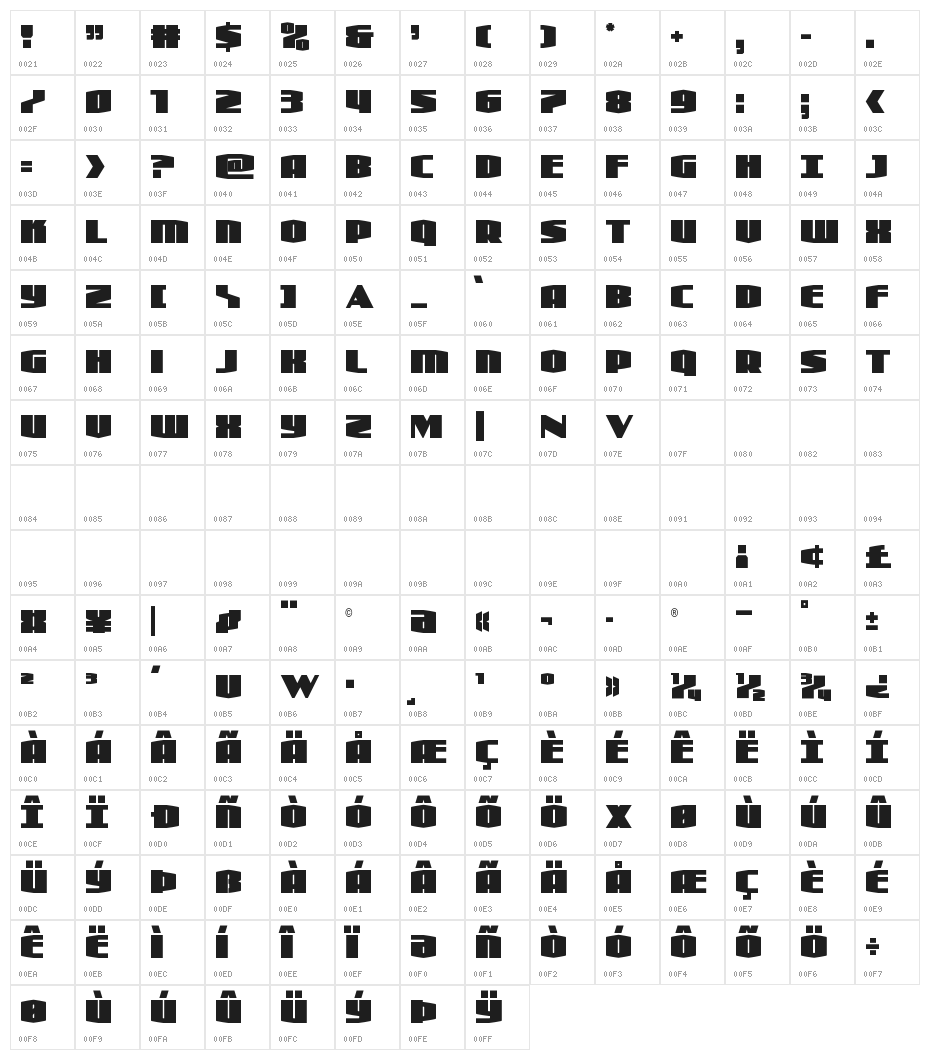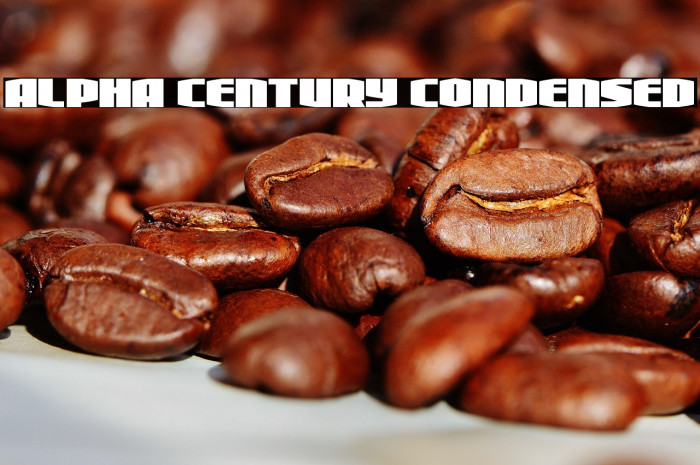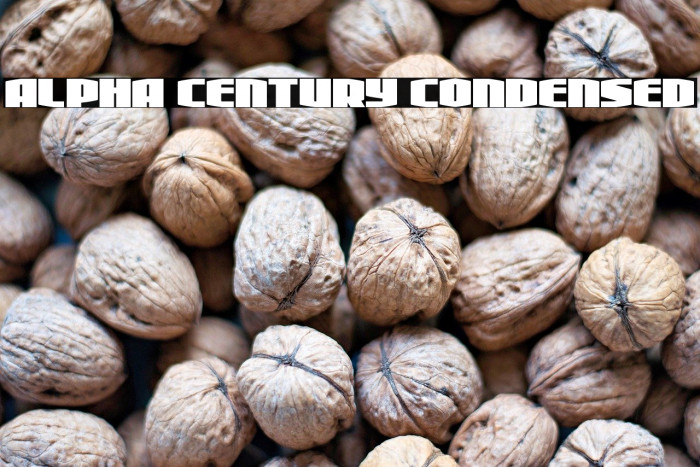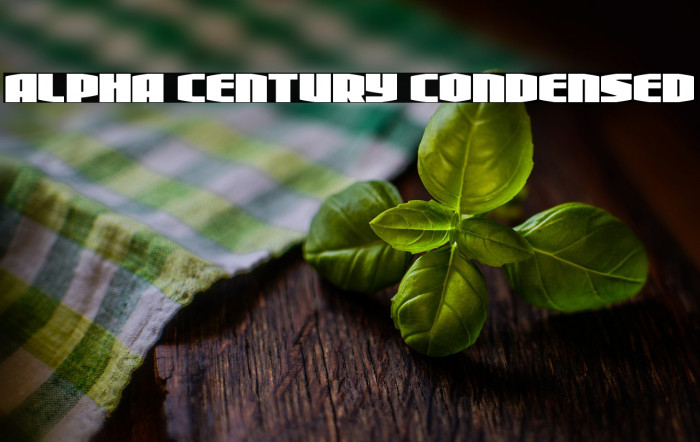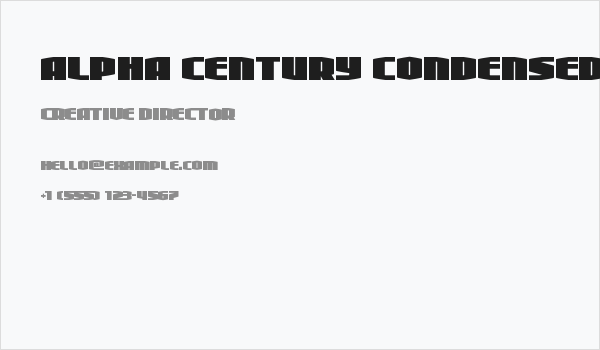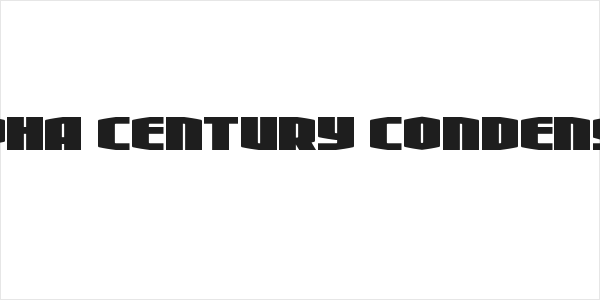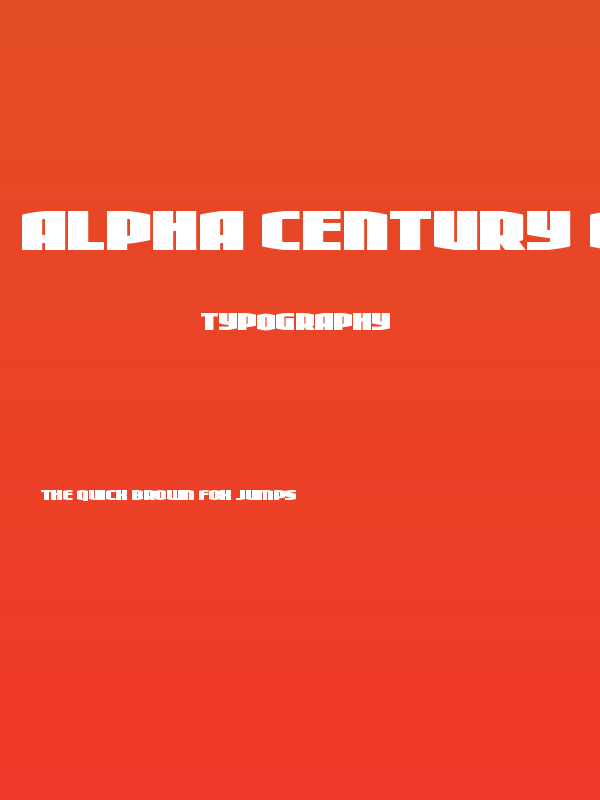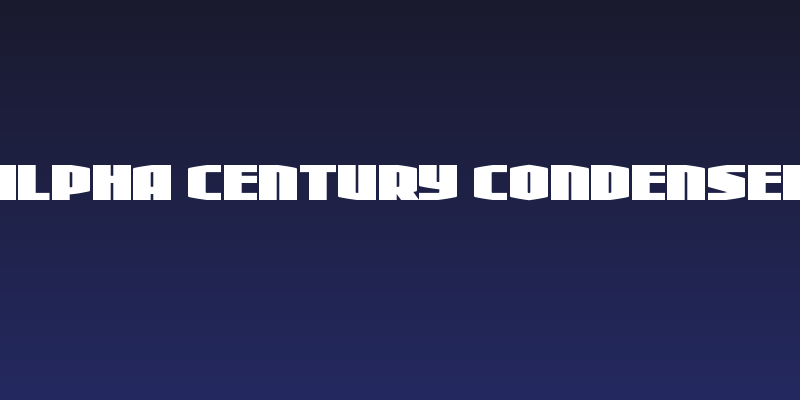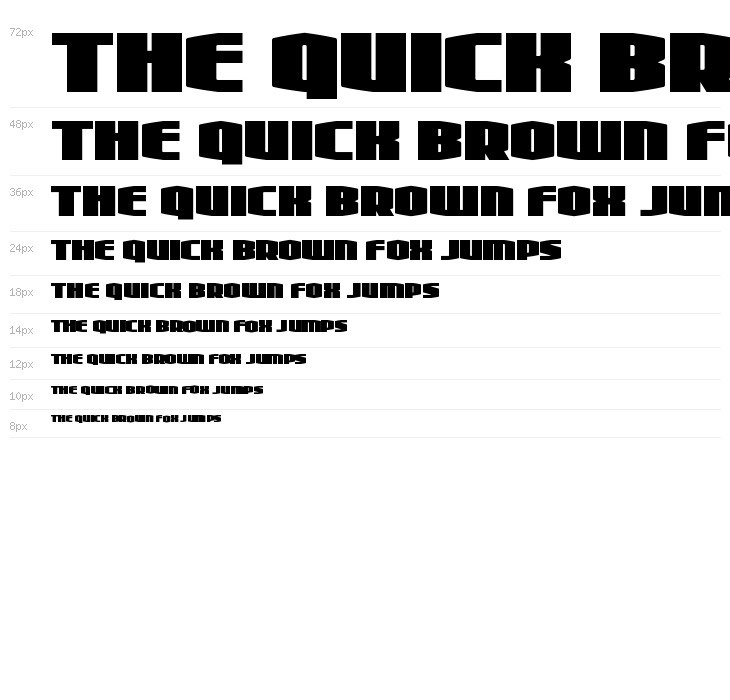
Alpha Century Condensed Font
Alpha Century Condensed Description
This font features a bold, condensed style with a strong geometric influence. The characters are uniformly thick, creating a powerful and impactful appearance. The uppercase and lowercase letters maintain a consistent height, contributing to a cohesive look. The numbers and special characters follow the same design principles, ensuring uniformity across all glyphs. The font's design is modern and assertive, making it suitable for attention-grabbing headlines and titles. Its condensed width allows for efficient use of space, making it ideal for projects where space is limited but impact is necessary.
| Proposed Projects | Ideal for posters, headlines, logos, and branding materials where a strong visual impact is needed. |